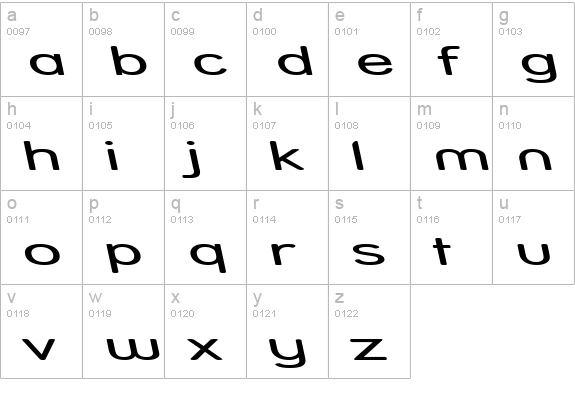
Street - Expanded Reverse Italic Font Details
Street - Expanded Reverse Italic is a distinctive, extended-width, italic variant in the Street typeface family \xE2\x80\x94 well suited to design and typography projects.
Introducing Street - Expanded Reverse Italic font, a sleek and modern typeface designed to make a bold statement in any design project. With its unique reverse italic styling and expanded letterforms, this font exudes a sense of contemporary sophistication and urban edge. Whether you're working on a branding project, advertising campaign, or editorial design, Street - Expanded Reverse Italic font is sure to grab attention and add a dynamic touch to your work. Its clean lines and distinctive slant make it perfect for headlines, logos, and other display purposes. Best of all, Street - Expanded Reverse Italic font is available for free download at FontsMarket.com. So go ahead and elevate your designs with this striking and versatile typeface today!